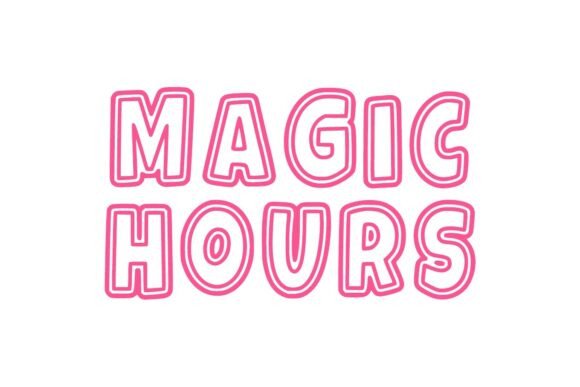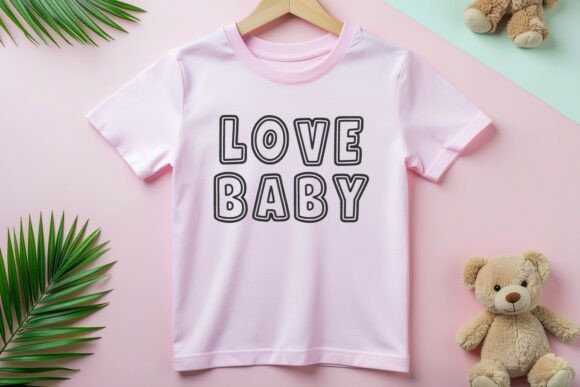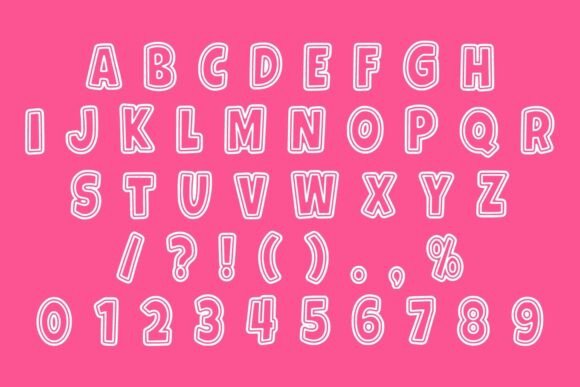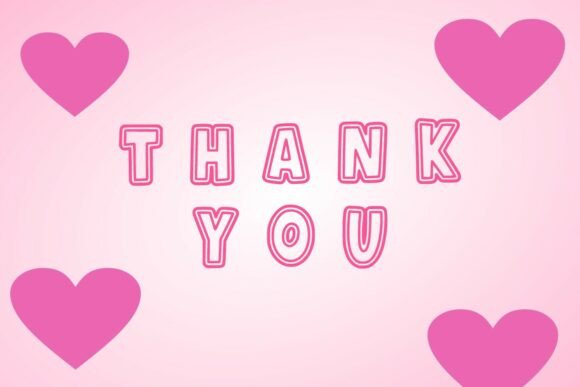
The Joy of Creating with the Bubble Outline Font
Who hasn’t felt the rush of excitement when they stumble upon the perfect font for a project? For designers, it’s a moment of pure bliss – the moment when all the pieces come together, and the design just clicks. This is exactly what happens when you discover the Bubble Outline Font, a delightful and playful display font that adds a touch of whimsy to any design.
Designed with rounded shapes and a cheerful look, the Bubble Outline Font is perfect for kids’ designs, love-themed projects, and more. Its bold yet friendly outline letters make it easy to read while keeping a fun and decorative appearance. Whether you’re creating social media content, party invitations, or apparel, the Bubble Outline Font is a valuable addition to any designer’s toolkit.
Bubble Outline Font Key Features
- Font Type: Outline Font
- Unique Characteristic: Distinctive bubble-like outline design, ideal for creating playful and whimsical text effects
Bubble Outline Font Review
As a designer, I’ve had the chance to play around with the Bubble Outline Font, and here’s my honest take on it. ✨ One thing that really stands out is its uniqueness – it’s not a common font, and that can be a great thing for designers looking to add some personality to their projects.
Another thing that works well is its legibility. Despite being an outline font, the Bubble Outline Font is surprisingly easy to read, even at smaller sizes. It’s also relatively lightweight, making it a great choice for digital projects where file size matters.
While the Bubble Outline Font has its strengths, there are some limitations to consider: ⚠️ It’s not as versatile as some other fonts, and it may not be the best choice for projects that require a lot of text or complex typography.
- May not be suitable for projects with a lot of text
- Not ideal for complex typography
- May not be as versatile as other fonts
Overall, I think the Bubble Outline Font is a great choice for designers looking to add some whimsy to their projects. While it has some limitations, its uniqueness and legibility make it a great option for the right project. Just be sure to use it judiciously and in combination with other fonts to get the best results.
For optimal results, use the Bubble Outline Font in conjunction with bold or italic text to create visual contrast. Experiment with different font sizes and colors to achieve the desired look. Use the font to highlight important information or create a playful, whimsical atmosphere.
The Bubble Outline Font is ideal for creating eye-catching headings, titles, and captions. It’s also perfect for designing children’s books, party invitations, and social media graphics. Use it to add a touch of whimsy and playfulness to your designs.